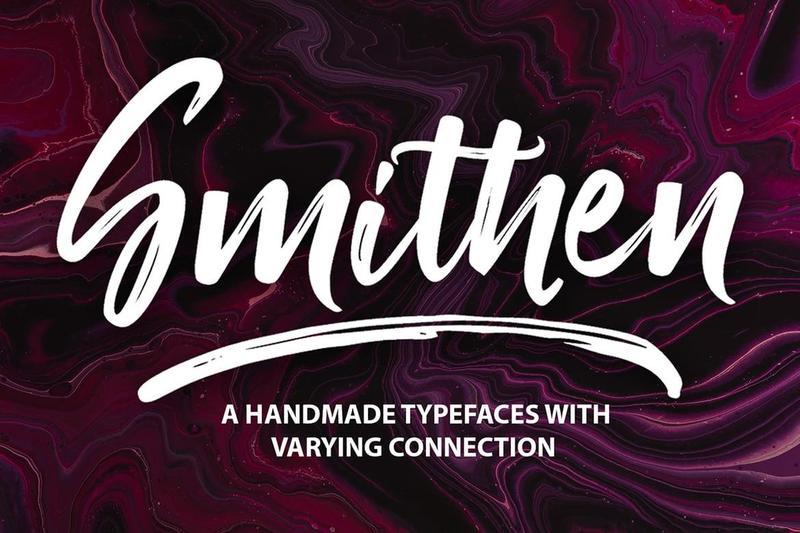
Smithen is a hand brushed font made with brush and ink. This typeface is ideal for use in bold watercolor designs or handwritten styles, such as blog titles, posters, wedding elements, book covers, business cards, greeting cards, branding, etc.
And also Smithen and swash, working in sync with Spadoya Regular to create incredible typographic creations. Get inspired by the preview above.
And also Spadoya and swash, working in sync with Spadoya Regular to create incredible typographic creations. Get inspired by the preview above.